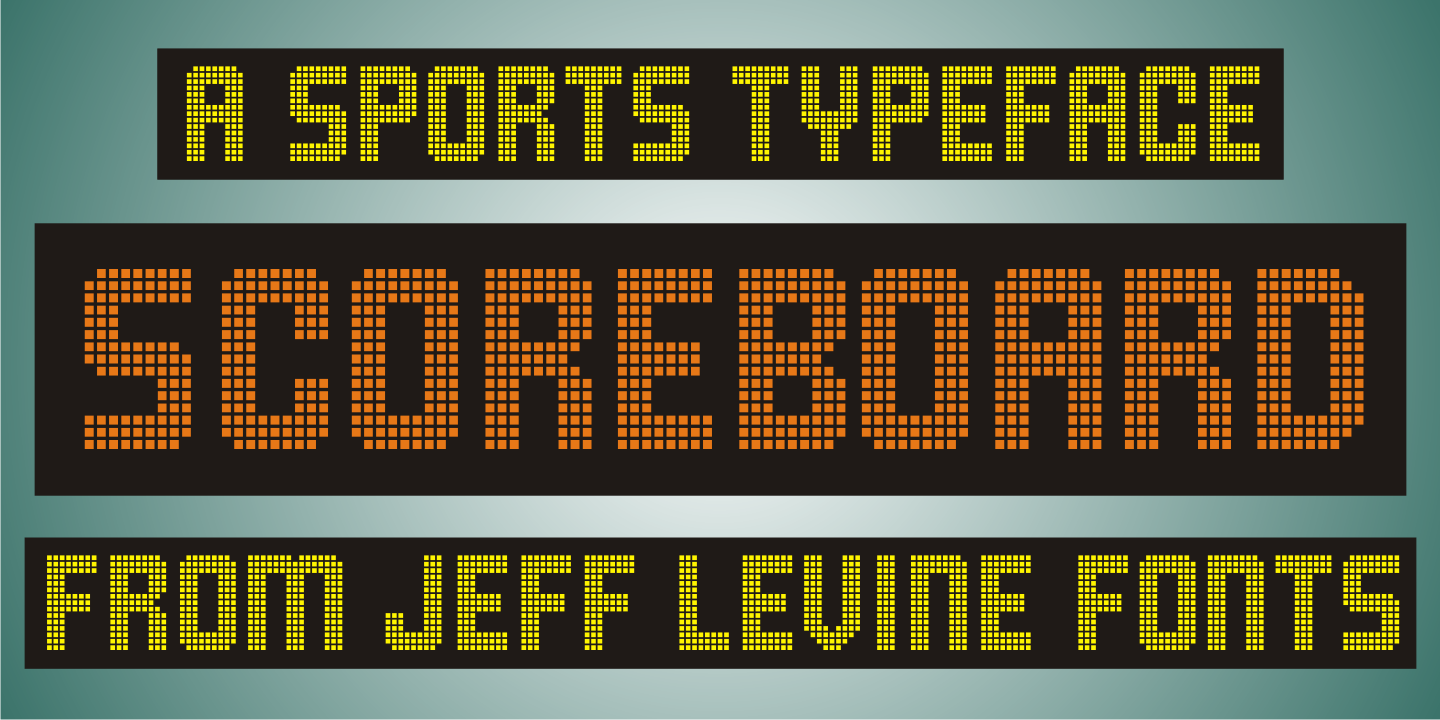
Scoreboard JNL Font is perfect for various applications including sports team branding, athletic event signage, stadium scoreboards, sports merchandise design, competition posters, fitness center logos, sports bar decorations, game day marketing materials, championship banners, and dynamic sports broadcasting graphics.
What makes Scoreboard JNL Font so exciting is its electrifying ability to capture the high-energy atmosphere and competitive spirit of live sporting events through bold, athletic typography. This dynamic typeface features strong, blocky letterforms with stadium-inspired proportions and scoreboard-style details that evoke the excitement of game day and the thrill of athletic competition. The font's competitive character and sports-focused aesthetic make it ideal for brands that want to convey energy, teamwork, and athletic excellence to audiences who live and breathe sports culture and competitive spirit.
Scoreboard JNL Font family includes multiple weights and styles: Light, Regular, Bold, Black, Stadium, Condensed, Extended, Championship, and athletically designed Italic variants. Each family member maintains the font's signature sports energy while offering different levels of visual impact and stylistic flexibility for diverse athletic and competitive applications.
The Scoreboard JNL Font Free Download provides designers with access to a sports-inspired typeface that excels in athletic and entertainment markets. Whether you're creating professional sports team identities, designing competitive event materials, or developing high-energy marketing campaigns, this font delivers the dynamic aesthetic needed to energize sports fans and athletic communities. Its stadium styling and competitive essence make it particularly effective for sports organizations, fitness brands, and athletic equipment companies.
Typography champions will appreciate the bold construction and athletic energy in Scoreboard JNL Font's design. The font features powerfully built letterforms with stadium proportions, optimized spacing for sports applications, and carefully crafted details that ensure excellent visibility even from stadium distances. From team merchandise to championship banners, this typeface maintains its energy and competitive appeal across all sporting contexts.
For sports web designers, Scoreboard JNL Font provides outstanding performance in athletic digital environments and sports streaming platforms. The font's technical specifications are optimized for dynamic displays and live sports broadcasts while preserving the bold, stadium-ready edges that define its competitive character. Its versatility makes it suitable for both static sports content and live athletic experiences.
Creative professionals working in sports marketing, athletic organizations, fitness industries, and competitive entertainment will find Scoreboard JNL Font to be an essential tool for projects requiring energetic visual communication. The font's ability to convey competition, teamwork, and athletic excellence makes it invaluable for brands targeting sports enthusiasts and competitive demographics.
Design agencies specializing in sports and athletic brands appreciate Scoreboard JNL Font's versatility in creating memorable championship identities.